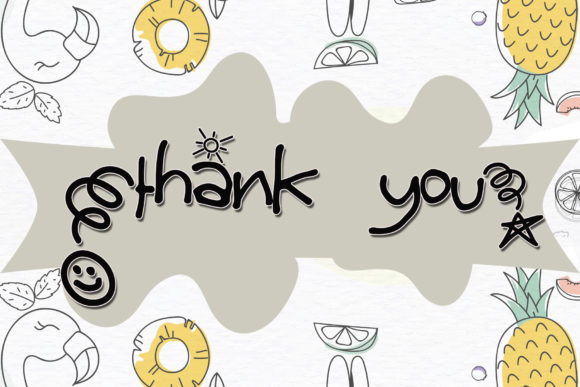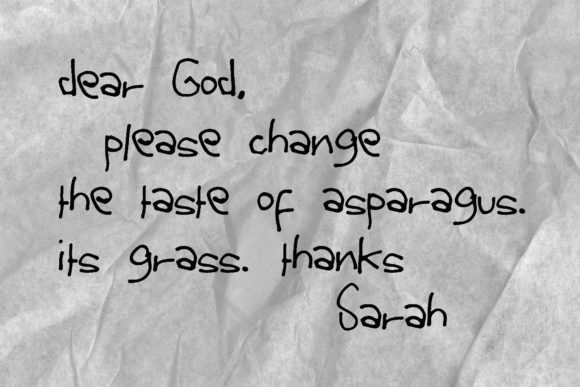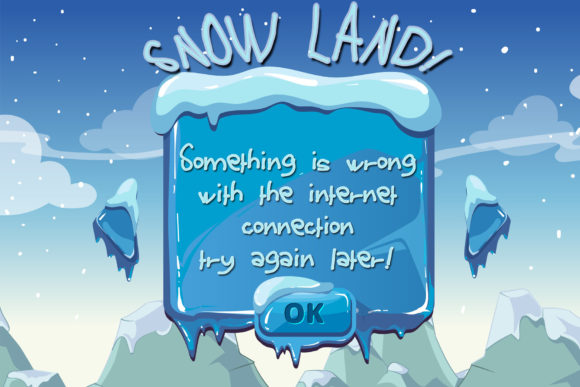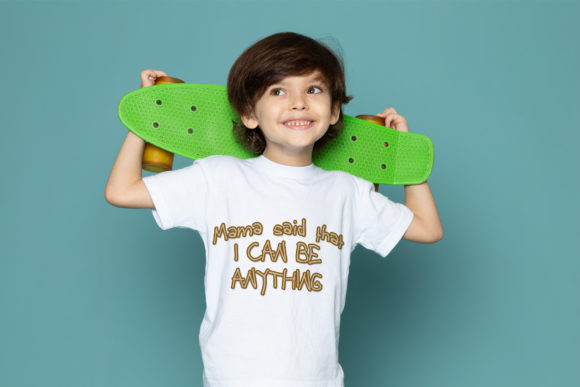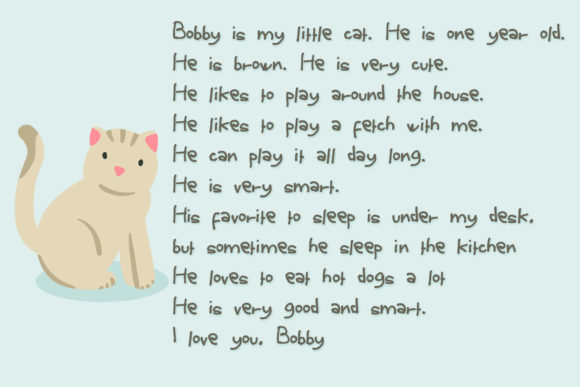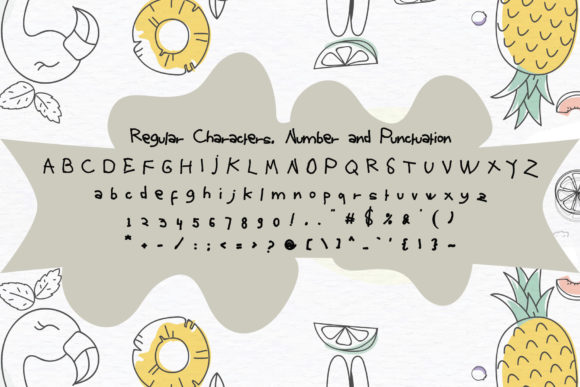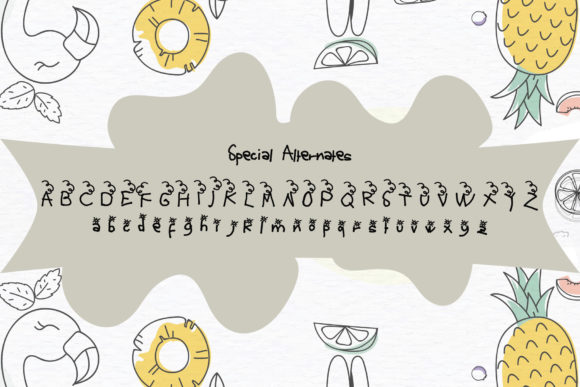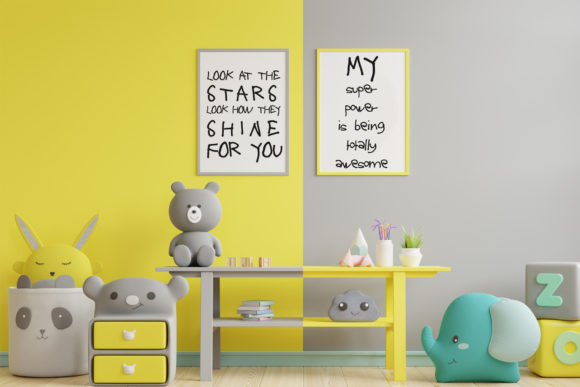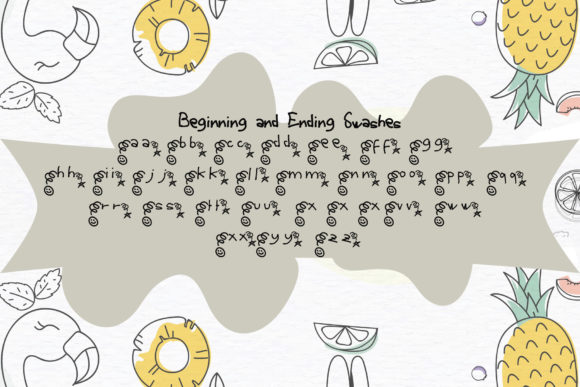
Summer Camp Font
About Summer Camp Font
Summer Camp is a delightful and playful handwritten font that adds a touch of whimsy and fun to any design. With its quirky and cute letterforms, it is the perfect choice for creating chalkboard quotes, teaching materials, or any project that needs a lighthearted and friendly vibe.
This font captures the essence of a carefree summer camp experience, evoking memories of childhood adventures and outdoor activities. Its unique and hand-drawn style gives it an authentic and personal feel, making it ideal for creating engaging and captivating designs.
One of the notable features of Summer Camp is its PUA encoding, which allows you to easily access all the glyphs and swashes it offers. This means you have full control over the decorative elements and stylistic variations available in the font, enabling you to customize and enhance your designs with ease.
Summer Camp is versatile and can be used in various design applications. It works well in creating eye-catching chalkboard quotes, infusing them with a playful and lively touch. Teaching materials such as worksheets, posters, and flashcards can benefit from the font’s friendly and approachable appearance, making learning a more enjoyable experience.
In addition to educational materials, Summer Camp can be used in a wide range of creative projects. It is suitable for children’s book illustrations, playful logos, invitations, greeting cards, and more. Its quirky and cute style adds a sense of joy and adventure to any design, making it particularly appealing for projects aimed at younger audiences.
So, embrace the charm and playfulness of Summer Camp and let it bring a touch of whimsy to your designs. With its PUA encoding, you have all the tools to create personalized and captivating creations that reflect the carefree spirit of summer camp.